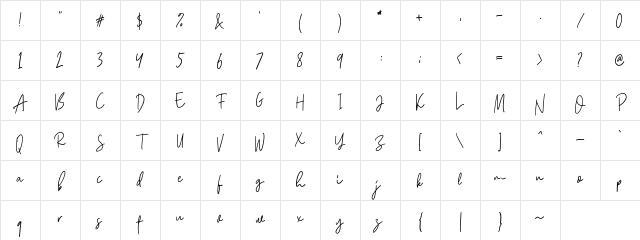
Camilla DEMO Regular
Foundry: Sarid Ezra
Designer: Sarid Ezra
Design Context for Camilla DEMO
Camilla DEMO is a composed and adaptable typeface that performs quietly and consistently across a wide range of design contexts.
Who designed the Camilla DEMO Regular font?